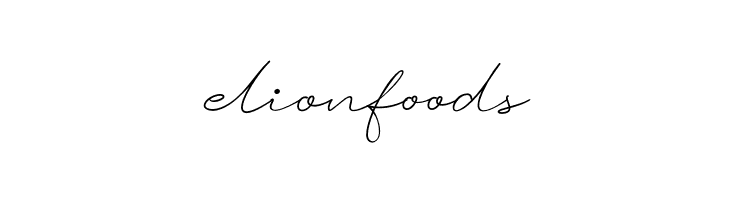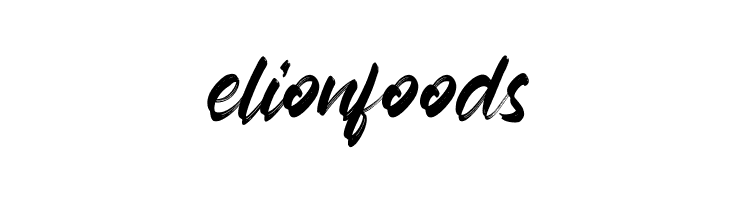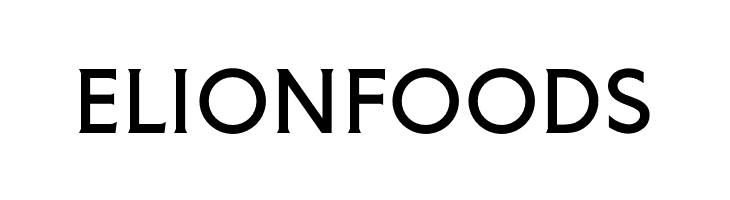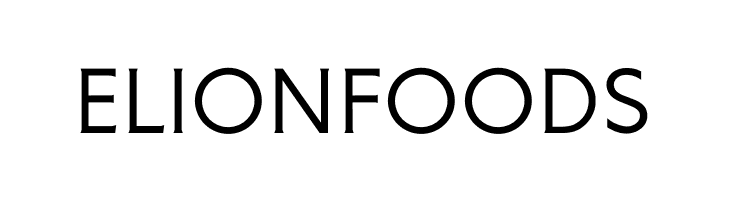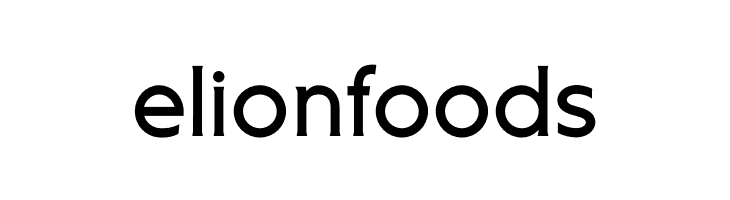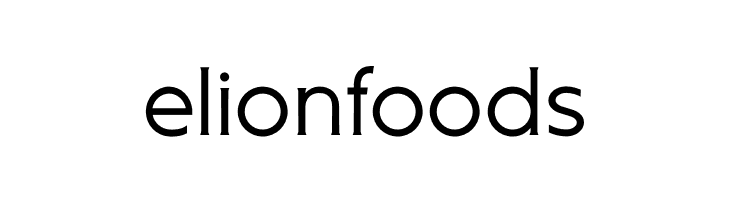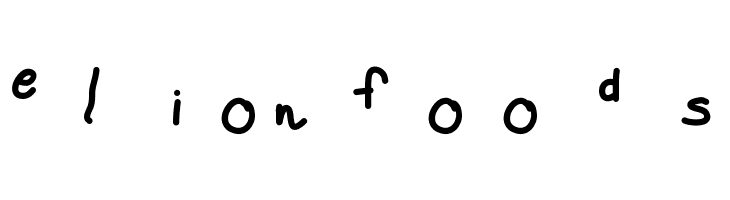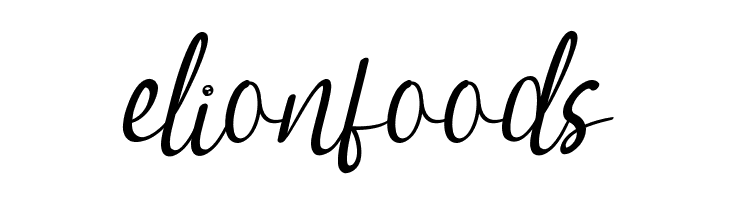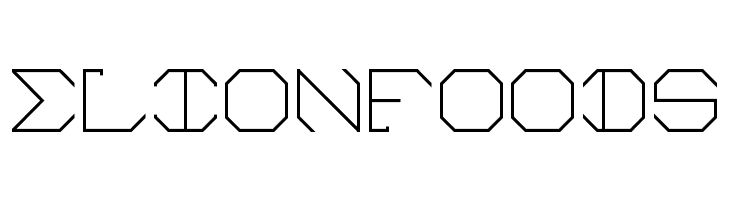
• Aurona
A modern, elegant script font with flowing curves and playful heart accents.
• aurora
A geometric, angular font with a futuristic and technical design.
• Aurora
A playful, informal handwritten font with irregular, slightly tilted letterforms.
• AURORA PRO
A bold, playful font with a bubbly, organic design.
• Aurothesia
A lively and elegant cursive script font with fluid connections.
• Aurum
A graceful script font with flowing, cursive characters and consistent stroke width.
• Ausberg
An elegant, cursive font with a natural handwriting style.
• Ausion Personal Use
A modern, geometric sans-serif font with clean lines and balanced characters.
• Ausion Personal Use Extra
A modern sans-serif font with a clean, balanced design.
• Ausion Personal Use ExtraCAPS
A modern, elegant font with clean lines and excellent readability.
• Ausion Personal Use Light
A clean, modern sans-serif font with a minimalist design.
• Ausion Personal Use LightCAPS
A clean, modern font with uniform stroke width and excellent readability.
• Ausion Personal Use RegularCAPS
A modern sans-serif font with clean lines and a professional appearance.
• AuslanFingerSpelling
Minimalist line-art font using hand shapes for each character.